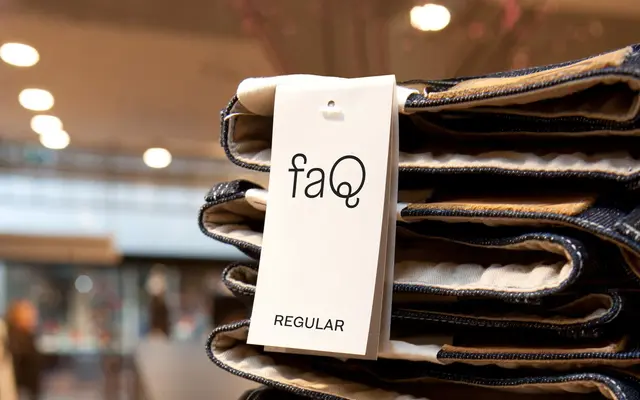
New Reason
Newlyn · Miles Newlyn
New Reason specimen from Newlyn
A revival grotesque by Miles Newlyn, drawn from Stephenson, Blake & Co. originals, with two character sets tuned for headings and text respectively.
The design preserves the characteristic tension between wide, stable capitals and a narrower, more animated lowercase found in late Victorian grotesques, while refining the rougher idiosyncrasies of its predecessors. Parentheses and mathematical symbols are redrawn as monolinear forms, improving readability, and tabular lining figures are highlighted as particularly suited to financial data. Five weights run from Light to Bold, and the dual character sets make it a practical choice for editorial and commercial work where warmth and period character are wanted without the roughness of direct historical revival.
Drawn directly from late 19th-century grotesques by Stephenson, Blake & Co., New Reason is a revival grotesque with wide, stable capitals and a narrower lowercase, placing it firmly in the Victorian grotesque lineage rather than the German or American branches.